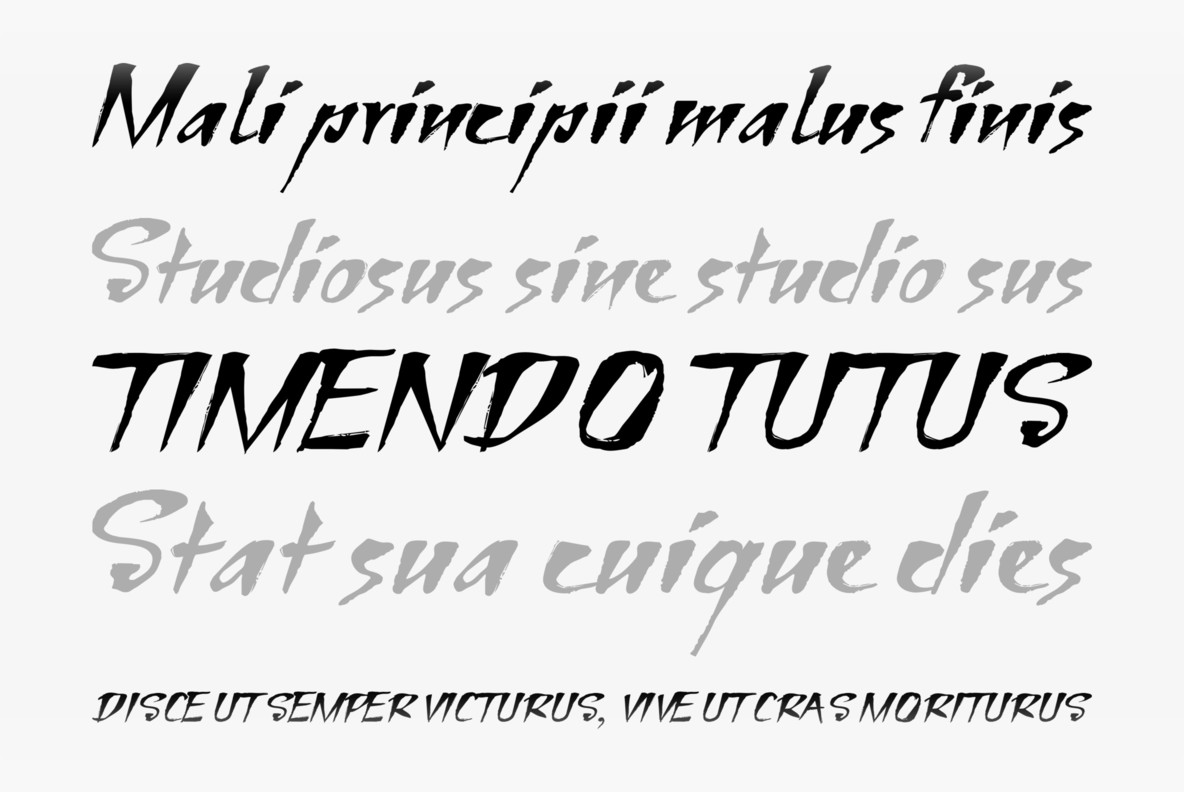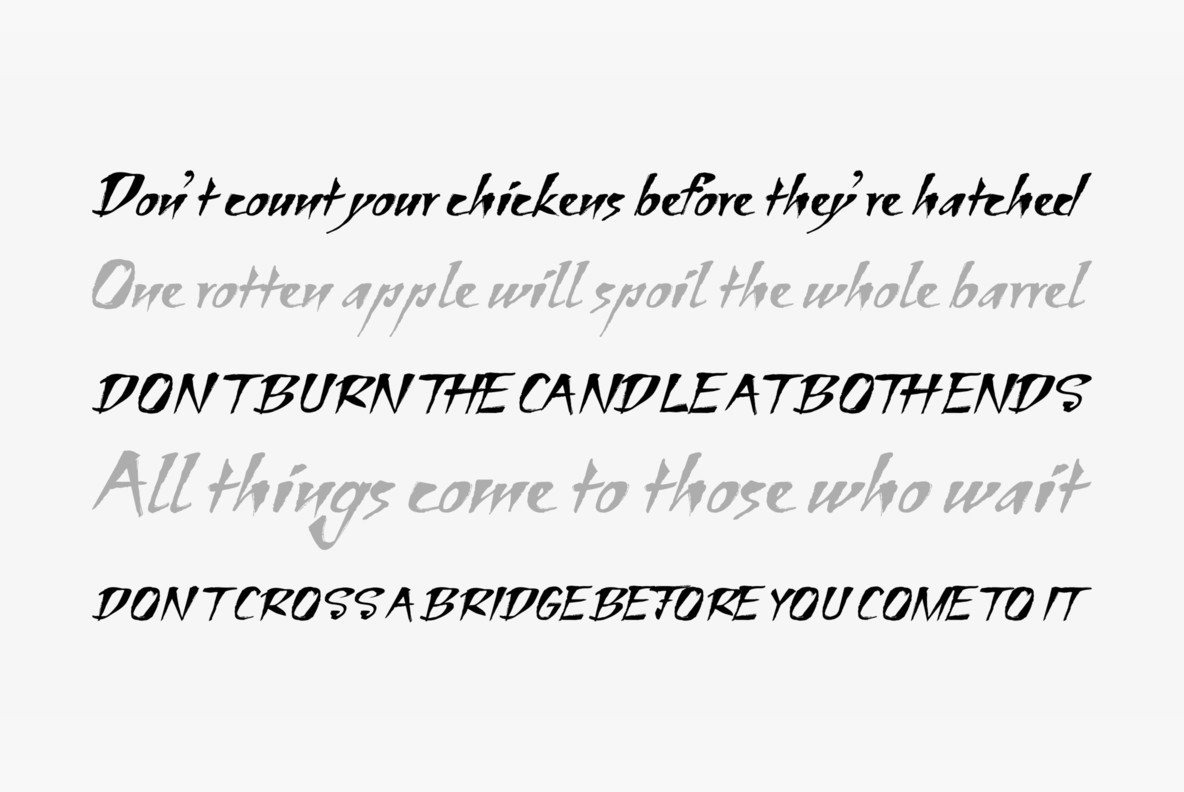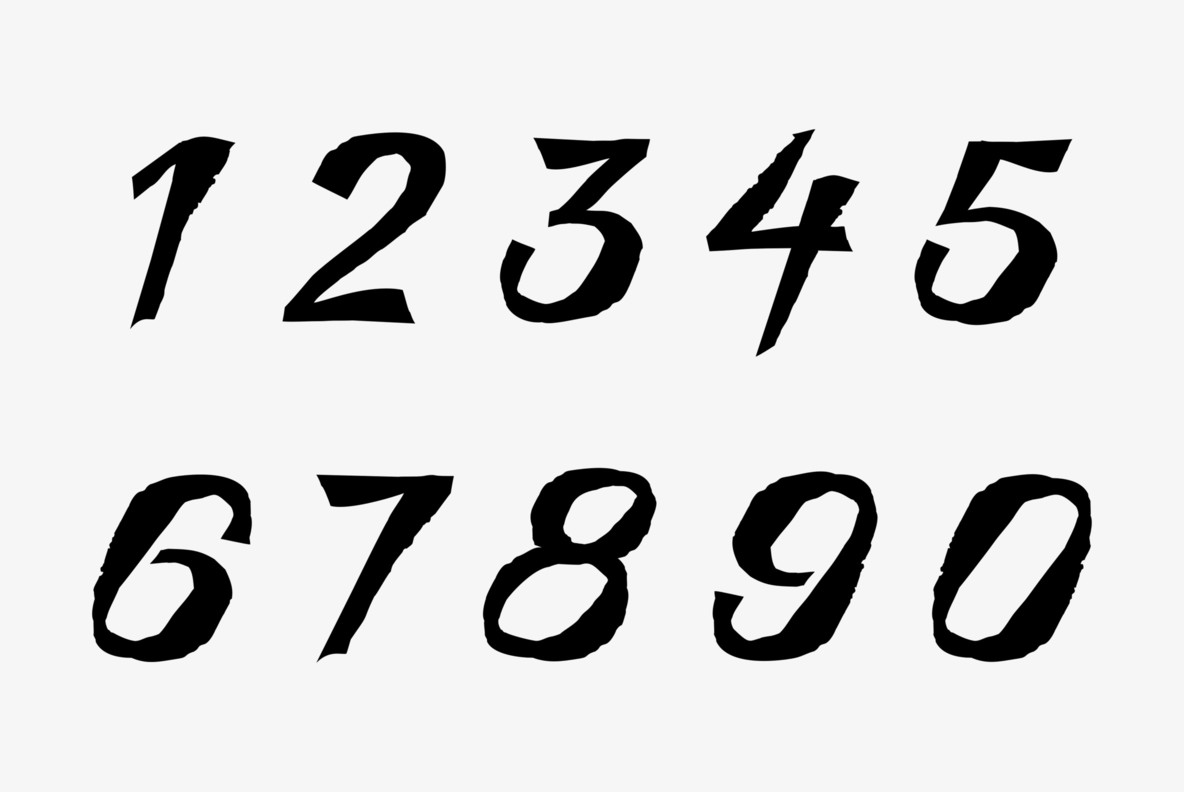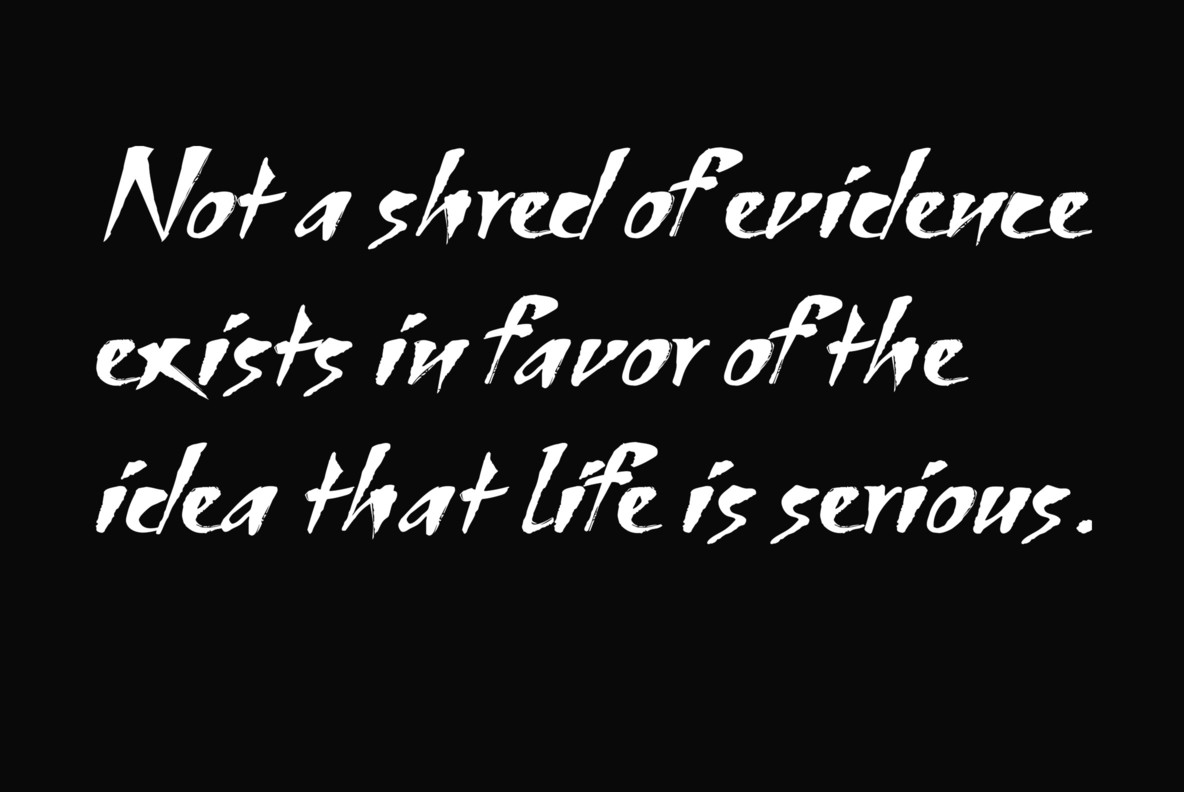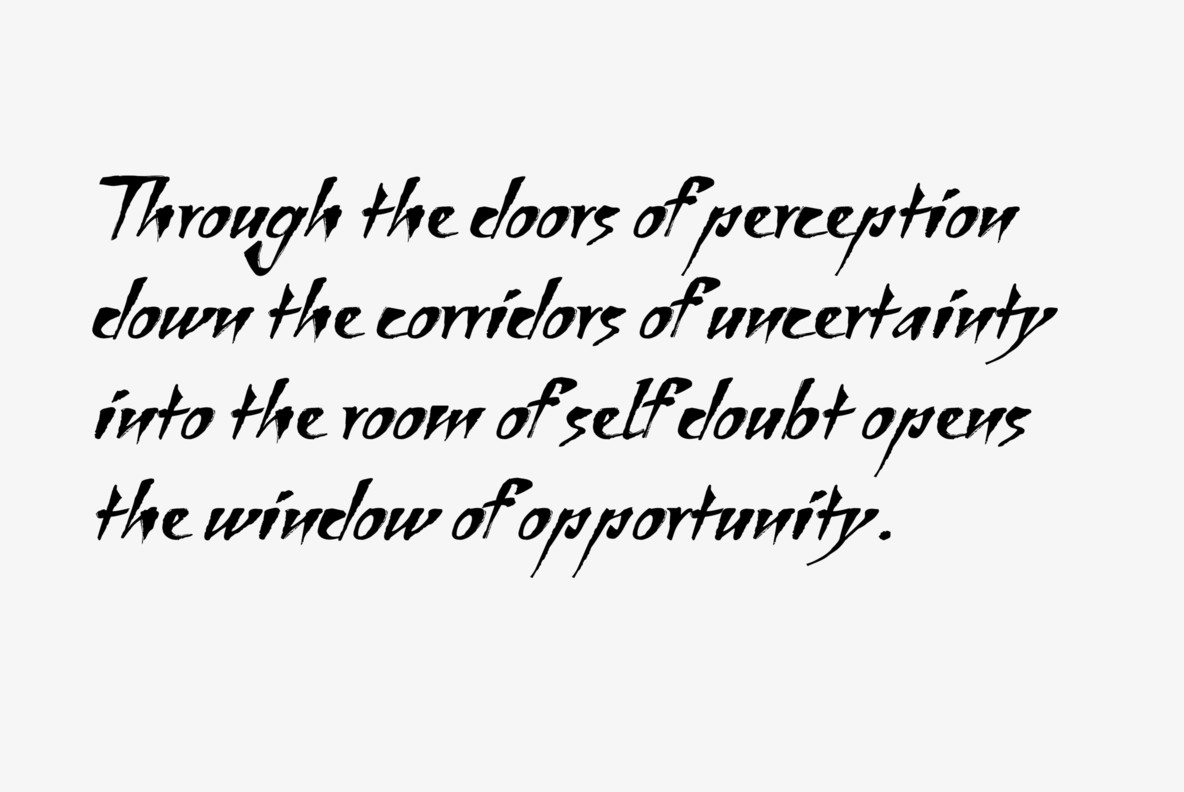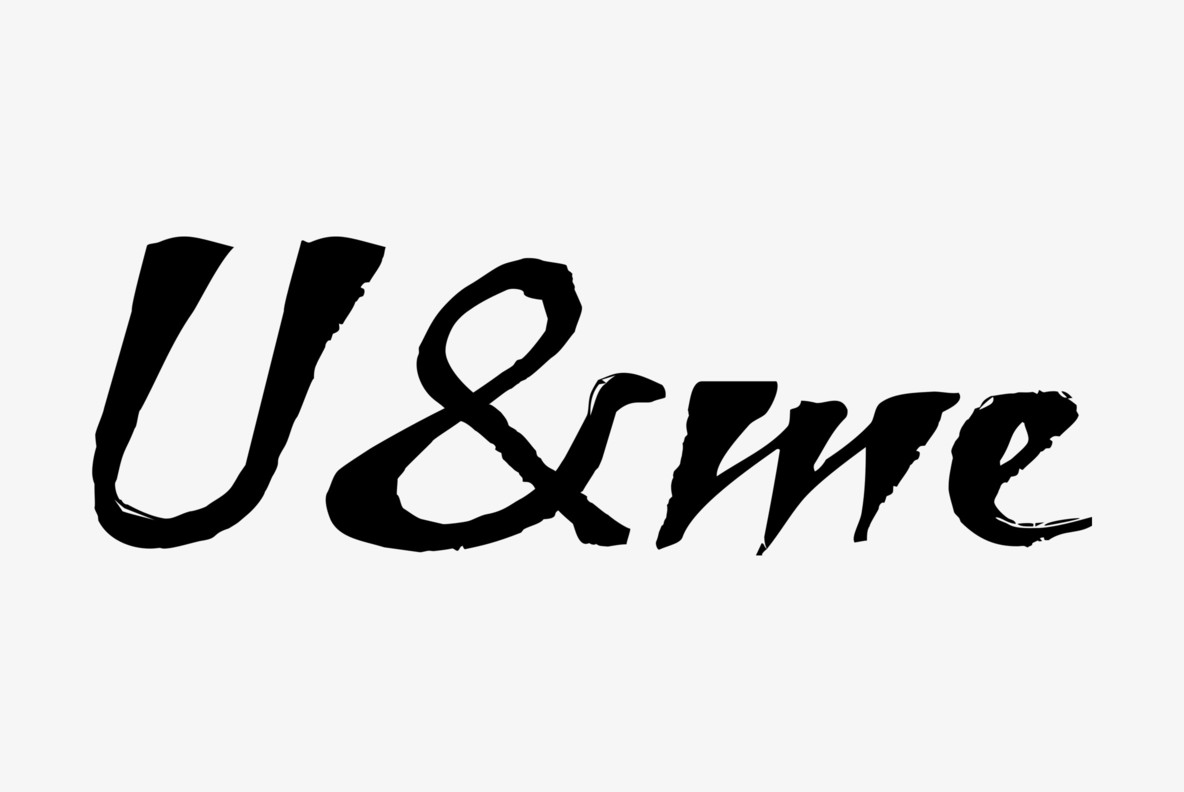
Bohemio Font
Bohemio
"Bohemio" is designed in memoriam of "Gunter Böhmer", an artist that is famous for his many bookcovers of the 1950's in Germany. The cover I took as an inspiration for this font is that of a book called "Stiller" (by Max Frisch).
"Bohemio" sounds similar to "Böhmer" (which means the one from Bohemia) and it is also an alliteration to "artisty". I thought "Bohemio" to be a nice name for this very strong, almost expressionist design. Yours very artsy craftsy Gert Wiescher